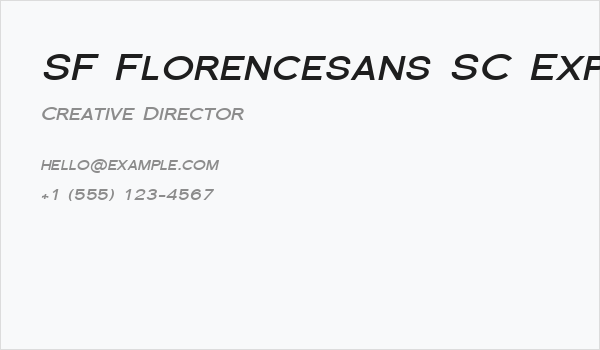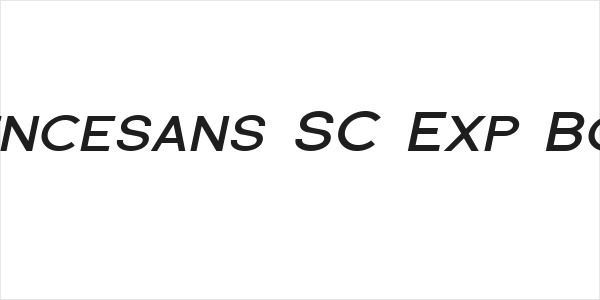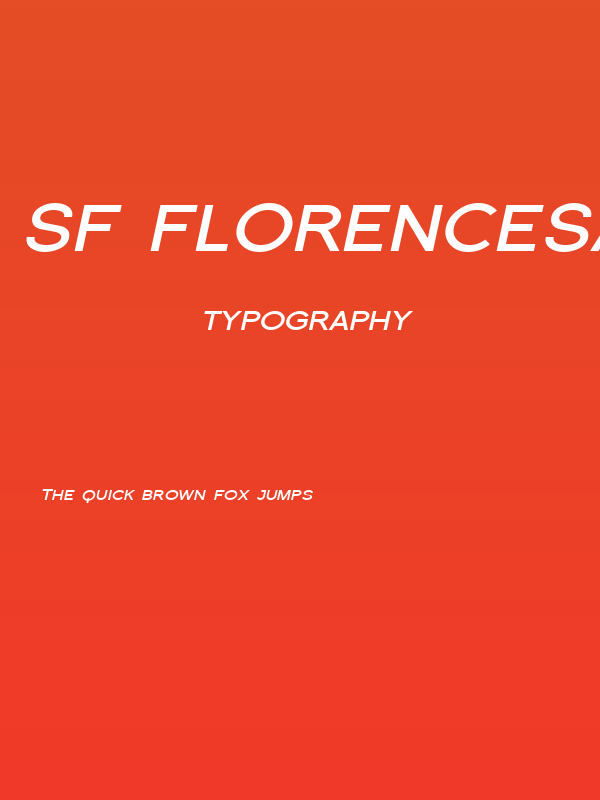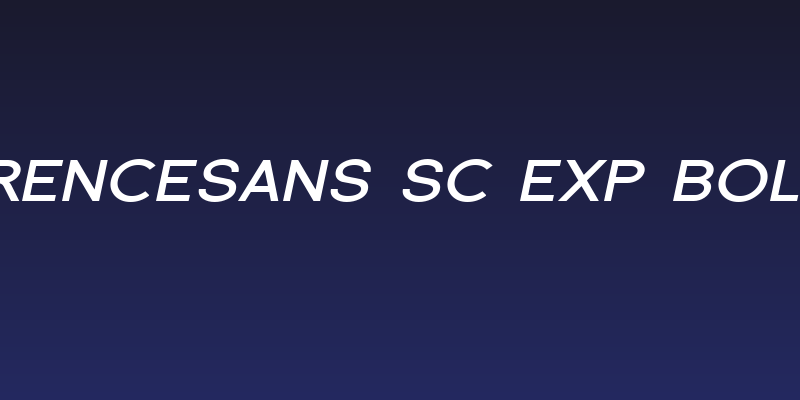
SF Florencesans SC Exp Bold Italic Font
SF Florencesans SC Exp Bold Italic Description
This font features a bold and italicized style with a modern sans-serif design. The characters are expanded, providing a wider appearance that enhances readability and impact. The strokes are consistent in thickness, offering a medium contrast that balances elegance with clarity. The italic slant adds a dynamic and forward-moving feel, making it suitable for contemporary and stylish applications. The overall design is clean and professional, ideal for making a strong visual statement.